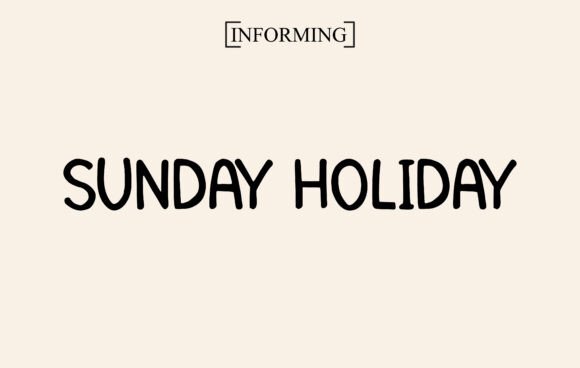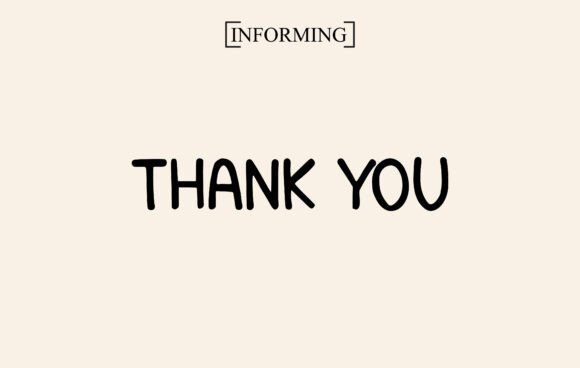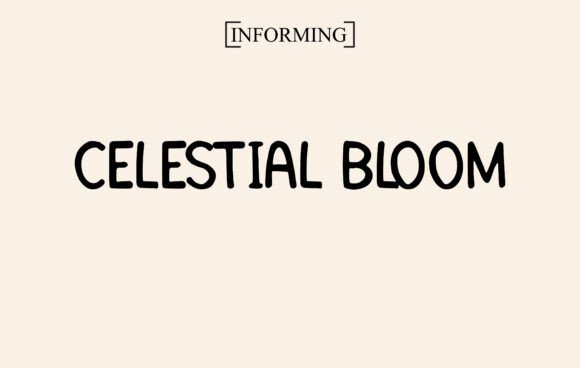
Celestial Bloom Font: Elevate Your Designs to New Heights
Are you tired of using the same old fonts in your designs? Look no further than the Celestial Bloom Font, a stunning and versatile typeface that’s sure to take your creative ideas to new heights. This font is designed to be a true favorite among designers and crafters, and for good reason. Its unique blend of elegance and playfulness makes it perfect for a wide range of projects, from magazine headlines to wedding invitations.
Legible and Versatile
One of the standout features of the Celestial Bloom Font is its exceptional legibility. Whether you’re using it as a title or body text, this font is easy to read and looks great in a variety of contexts. This makes it perfect for designers who want to create visually appealing text that’s also easy to understand. The font’s versatility is also a major plus, as it can be used in everything from digital designs to print materials.
Perfect for a Wide Range of Designs
So what can you use the Celestial Bloom Font for? The possibilities are endless! Here are just a few ideas to get you started:
- Magazine headlines: Add a touch of elegance and sophistication to your magazine with this beautiful font.
- T-shirts and apparel: Create eye-catching designs that will stand out on t-shirts, hoodies, and other apparel.
- Social media graphics: Use this font to create stunning social media graphics that will help your brand stand out.
- Branding and logos: Create a unique and memorable brand identity with this versatile font.
- Wedding invitations: Add a touch of romance and whimsy to your wedding invitations with this beautiful font.
- Cards and stationery: Create beautiful cards and stationery that will make a lasting impression.
Why Choose Celestial Bloom Font?
So why should you choose the Celestial Bloom Font for your next design project? Here are just a few reasons:
- Unique and eye-catching: This font is sure to grab attention and set your designs apart from the crowd.
- Highly legible: Your text will be easy to read, even at small sizes.
- Versatile: Use this font in a wide range of designs, from digital to print.
- Elegant and playful: This font has a unique blend of elegance and playfulness that’s sure to charm.
Tips for Using Celestial Bloom Font
Here are a few tips for getting the most out of the Celestial Bloom Font:
- Experiment with different sizes and colors to find the perfect look for your design.
- Pair this font with other fonts to create a unique and visually appealing combination.
- Use this font to add a touch of elegance and sophistication to your designs.
- Don’t be afraid to get creative and try new things – this font is perfect for experimenting with different design ideas.
In conclusion, the Celestial Bloom Font is a versatile and beautiful typeface that’s perfect for designers and crafters who want to take their creative ideas to new heights. With its exceptional legibility, elegant and playful design, and wide range of uses, this font is sure to become a favorite in your design toolkit. So why wait? Download the Celestial Bloom Font today and start creating stunning designs that will leave a lasting impression.